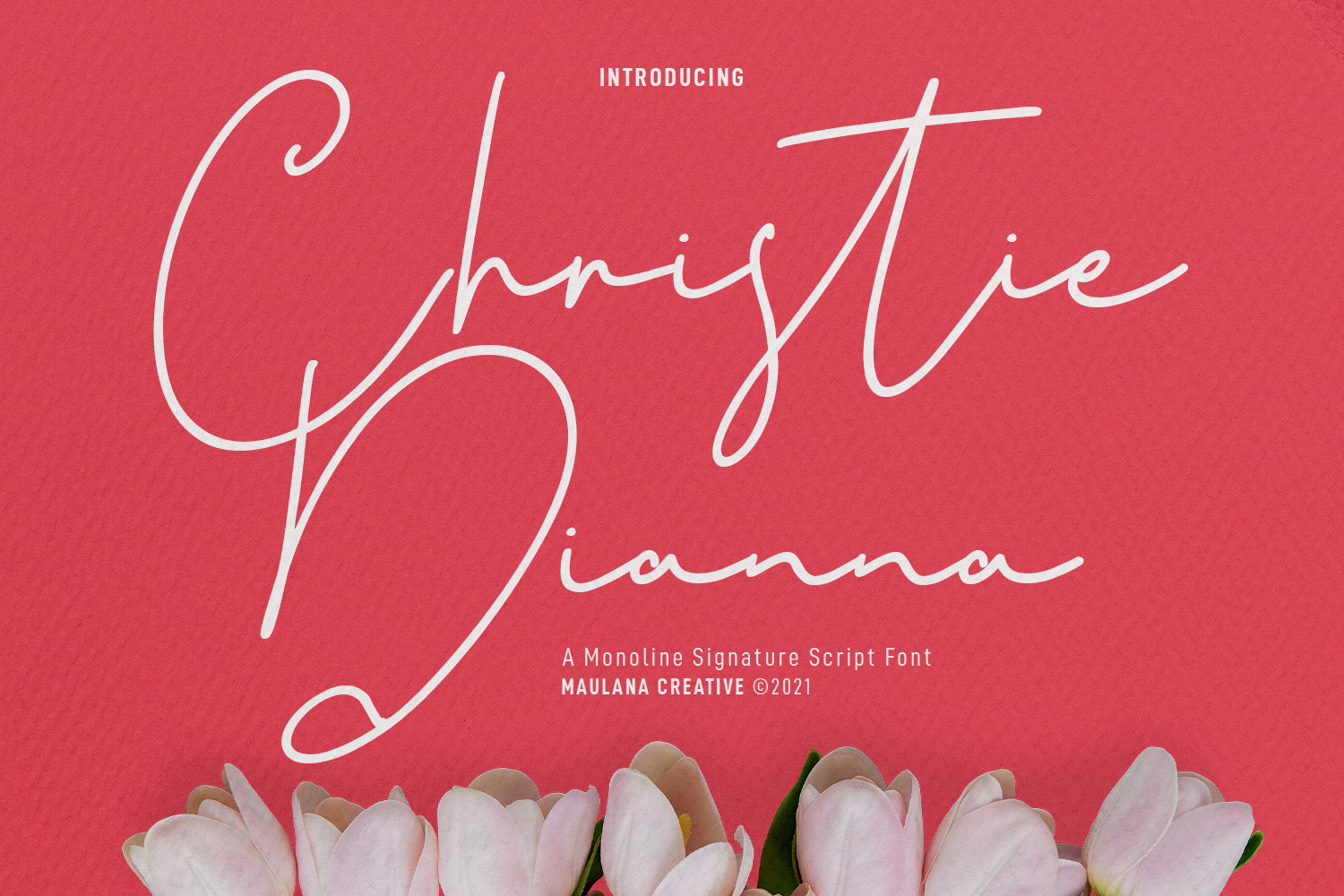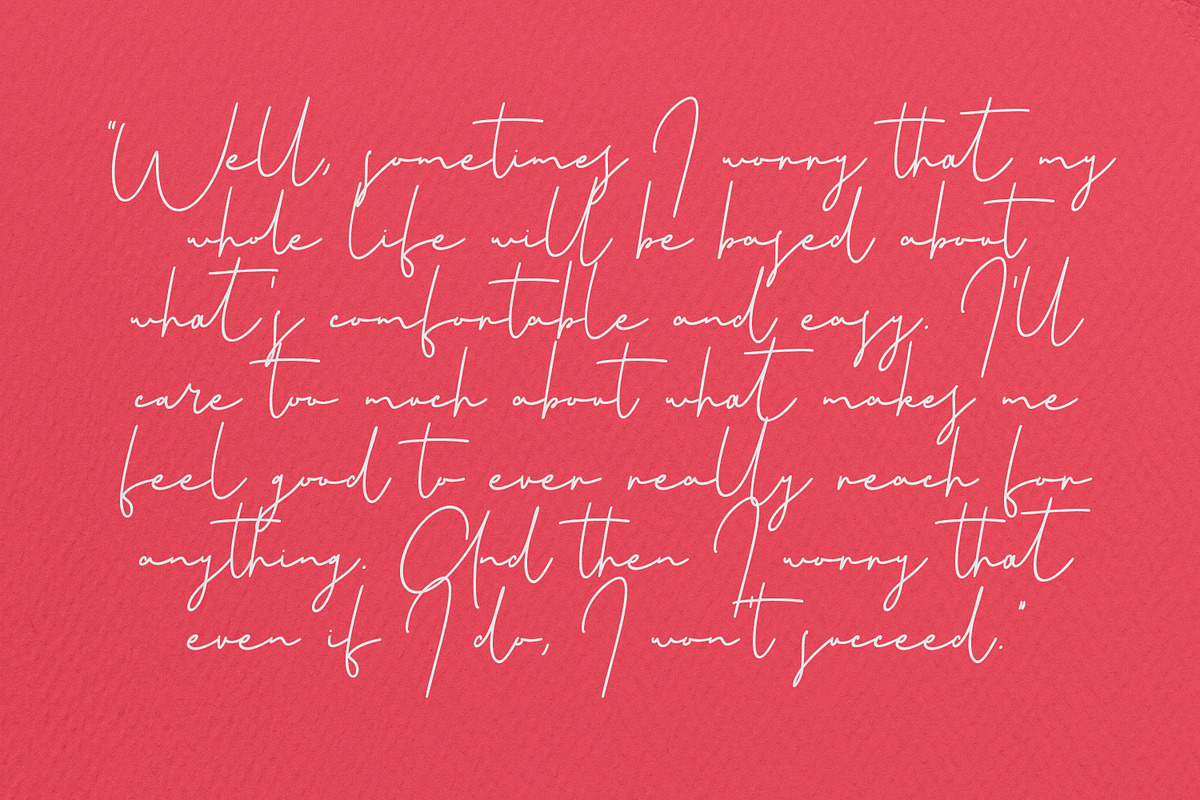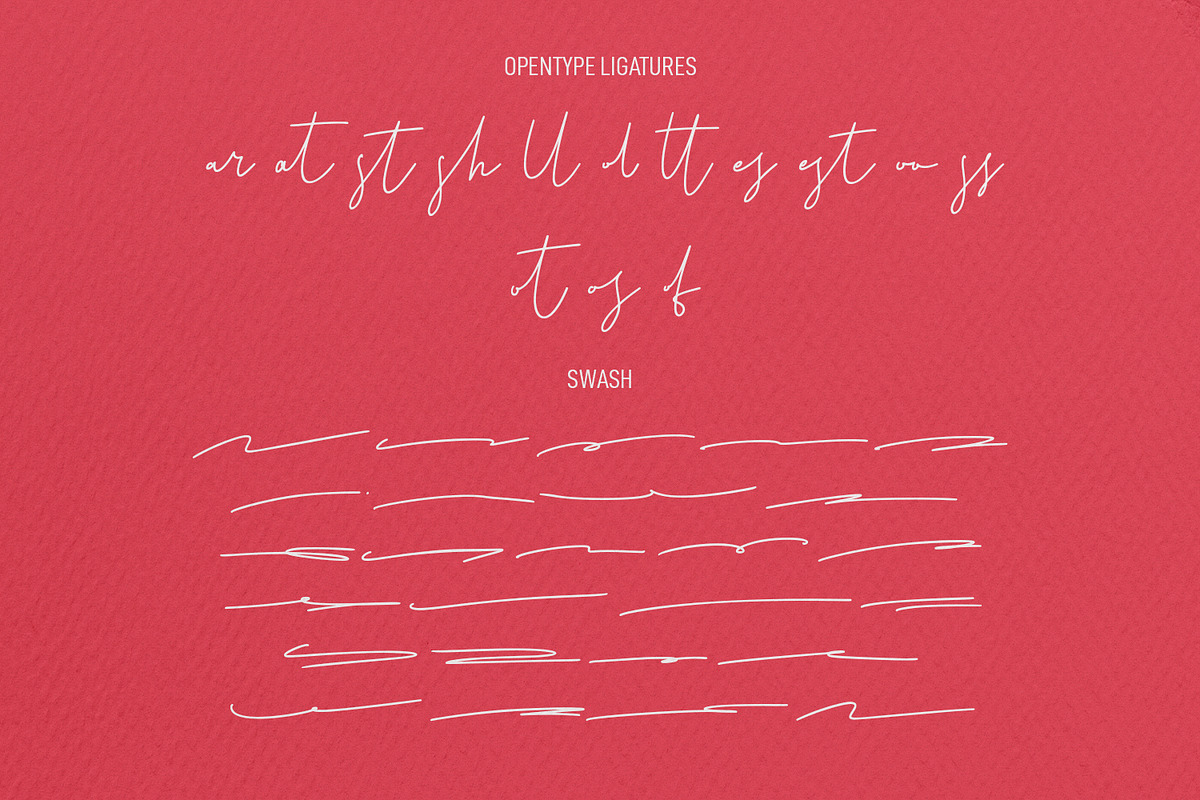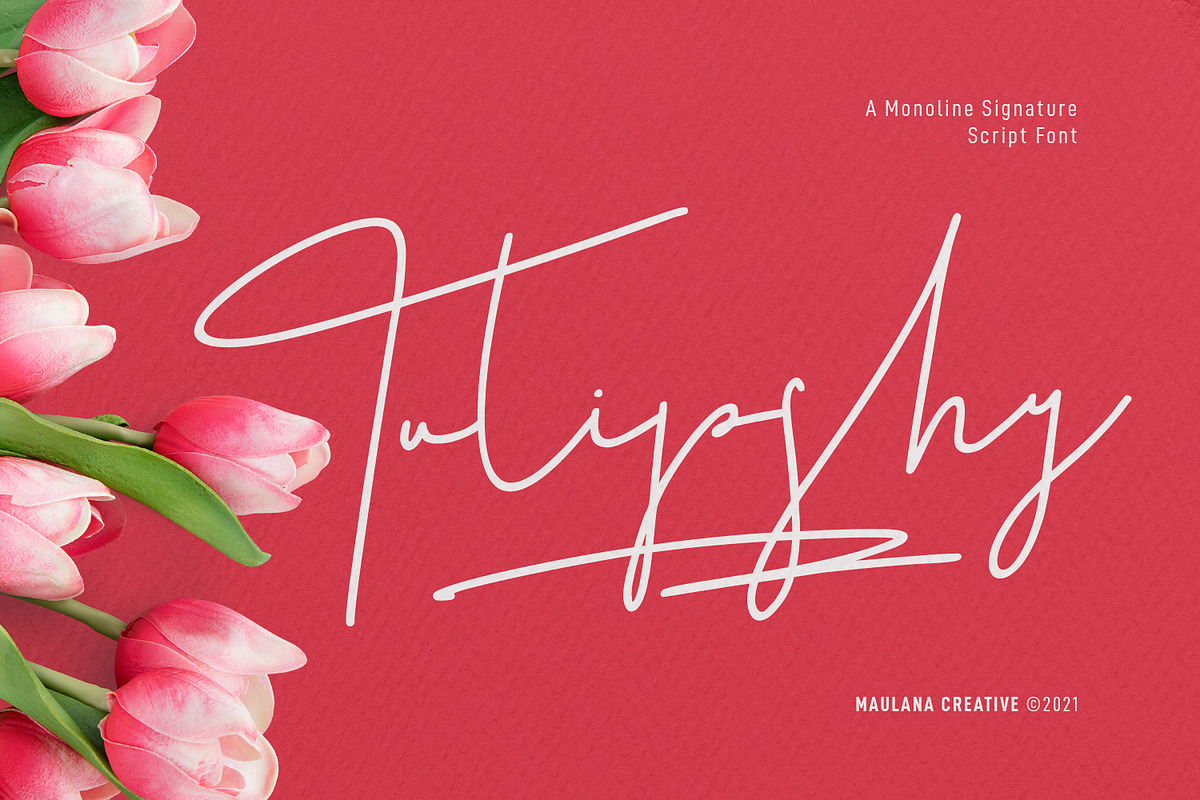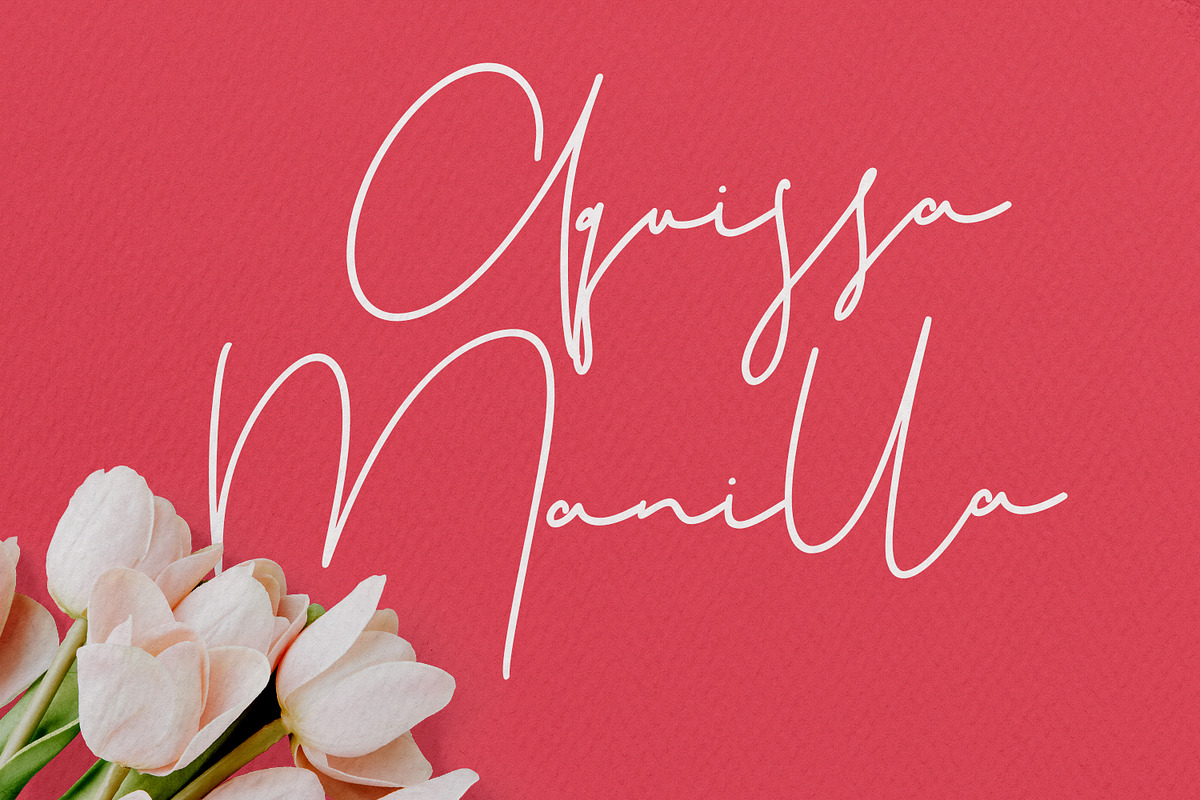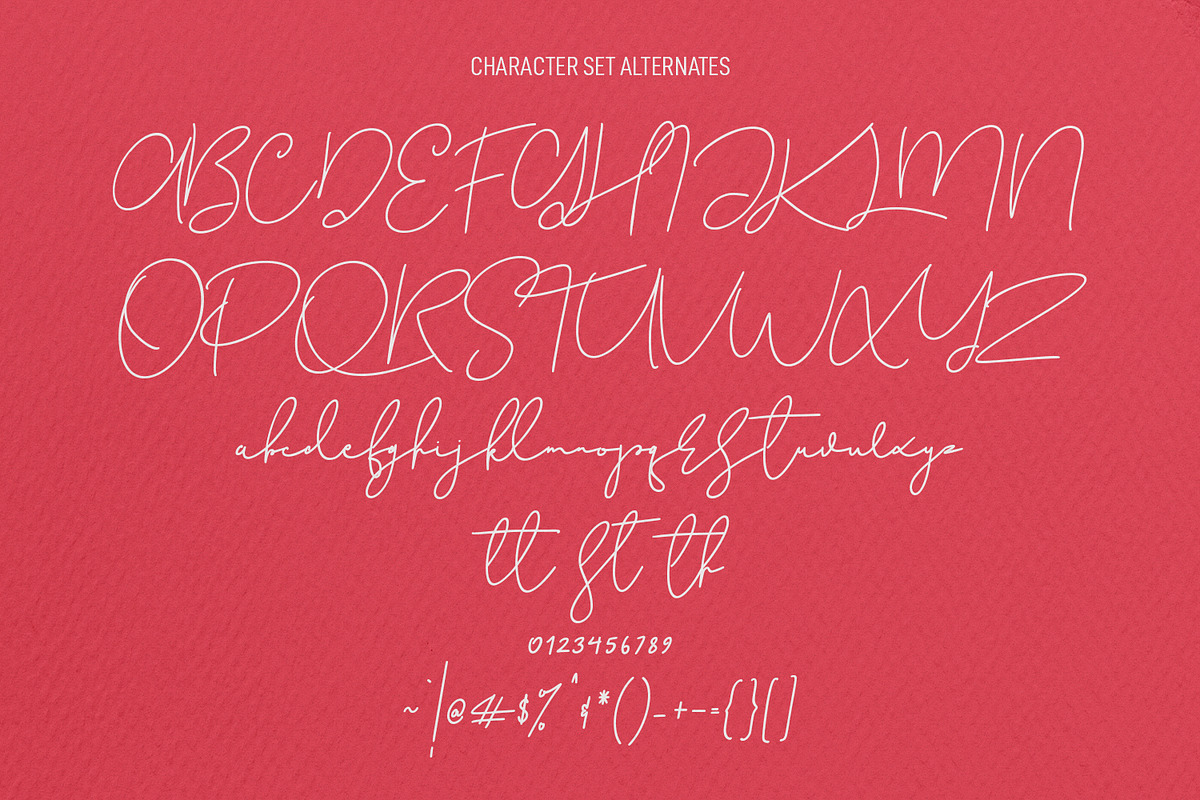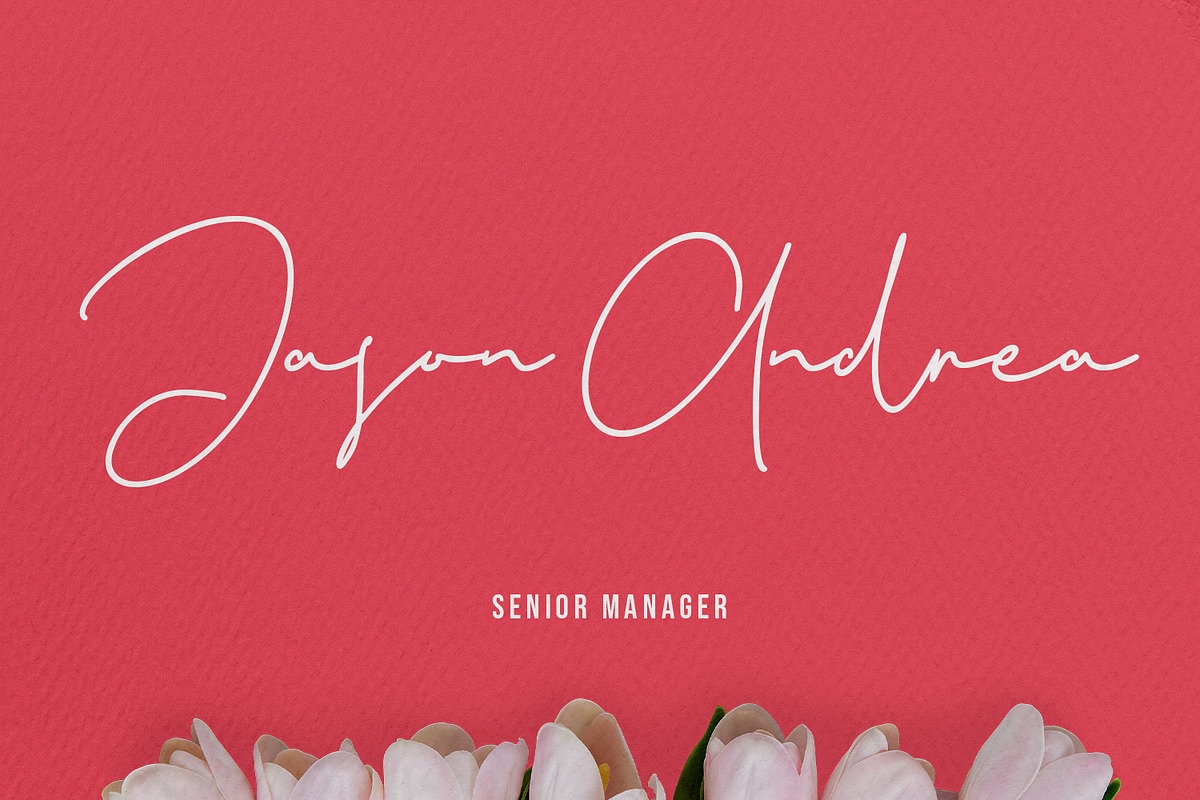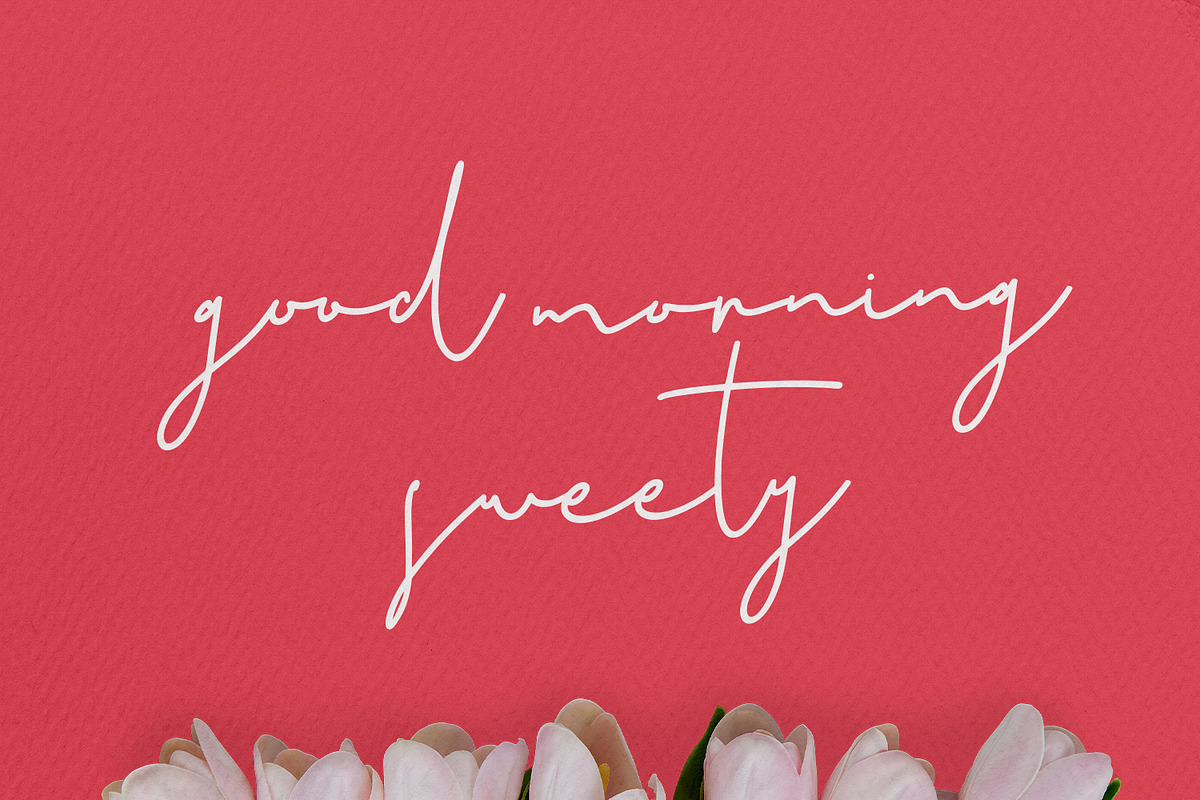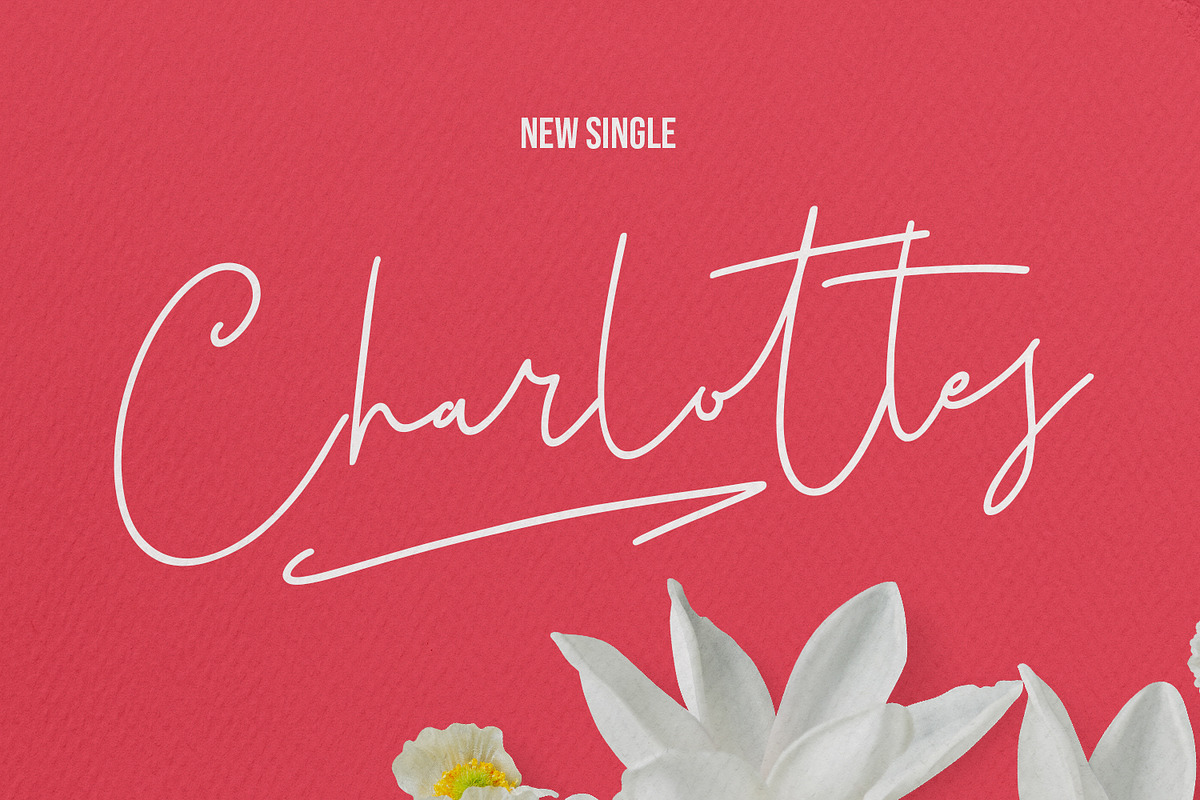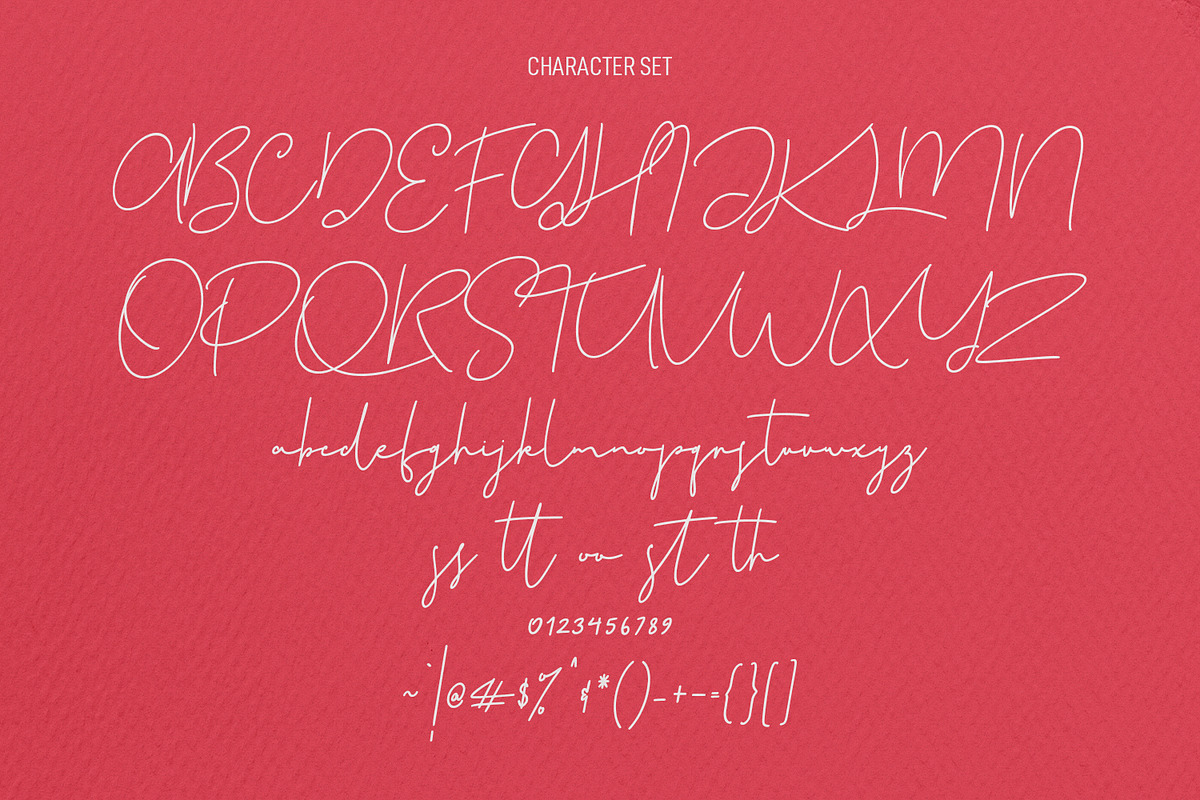
Christie Dianna Valentine Font
Christie Dianna Font is a mono-line signature script font. With clean light stroke, fun character with a bit of ligatures, two files lowercase alternates and swashes. To give you an extra creative work. Christie Dianna font support multilingual more than 100+ language. This font is good for logo design, Social media, Movie Titles, Books Titles, a short text even a long text letter and good for your secondary text font with sans or serif. Make a stunning work with Christie Dianna font.